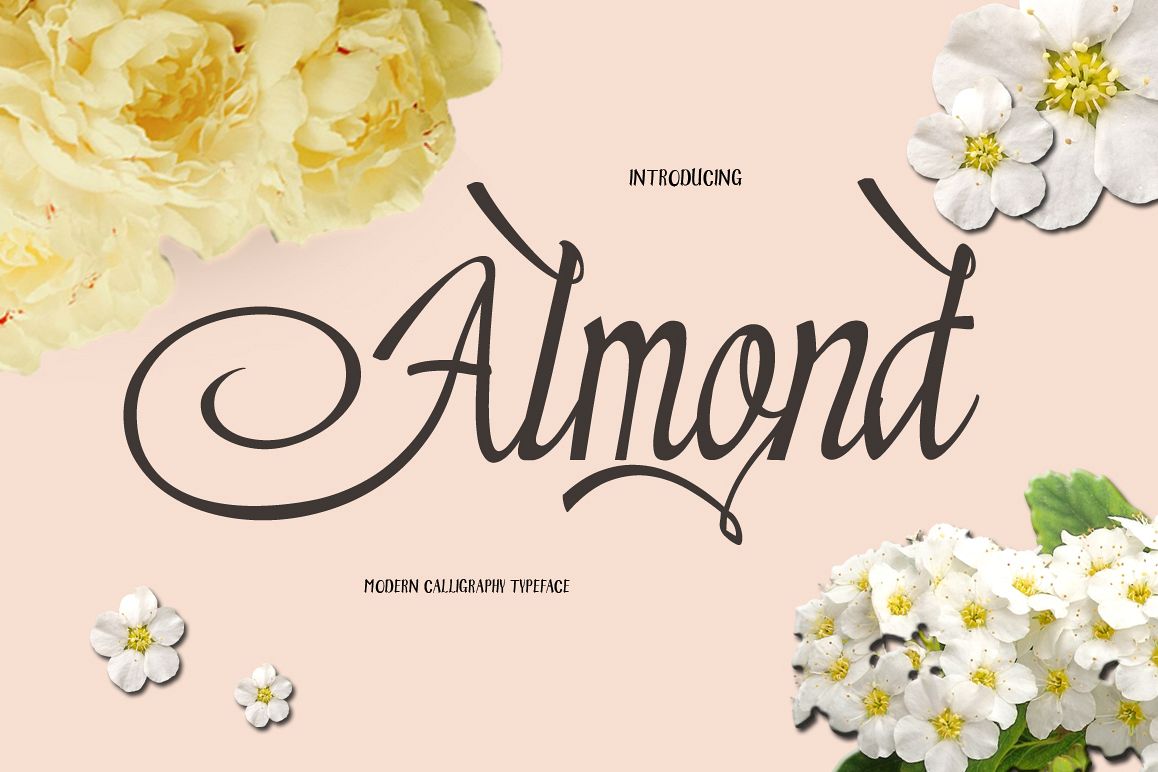
Almond
Almond is a font bold, so, brush script that is beautiful and unique, it is a model of modern calligraphy typefaces, in combination with a calligraphy writing style. The Features of this fonts is;
Contextual Alternates
Standart ligatures
Stylistic Alternates
Can be used for various purposes.such as headings, logos, wedding invitation, t-shirt, letterhead, signage, lable, news, posters, badges etc.